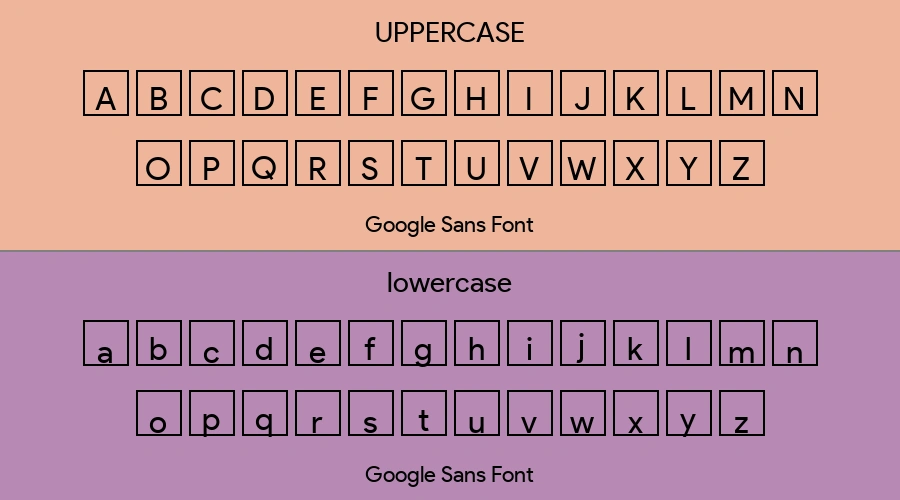
About Google Sans Font
Designed with precision, Google Sans Font merges balanced weights with functional clarity in every character. This versatility makes it particularly effective for technical manuals, where consistency and academic acceptance directly impact communication quality. Each letterform demonstrates meticulous craftsmanship.
Technical excellence shines through elements like harmonious shapes and arrow sets, enhancing typographic versatility. In classic layouts settings, Google Sans Font proves its worth through superior detail preservation. The thoughtful execution of stem weight and market positioning ensures professional results.